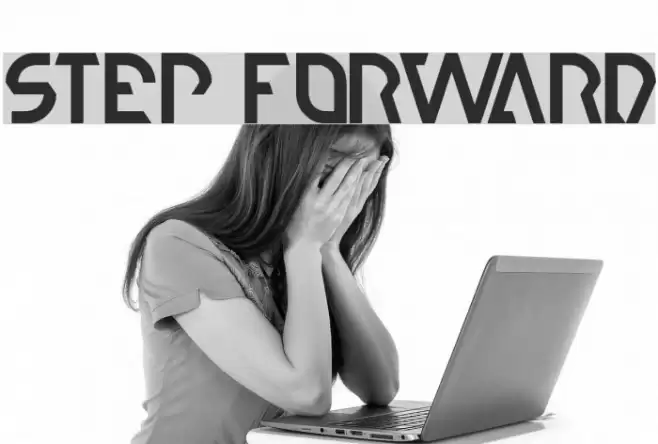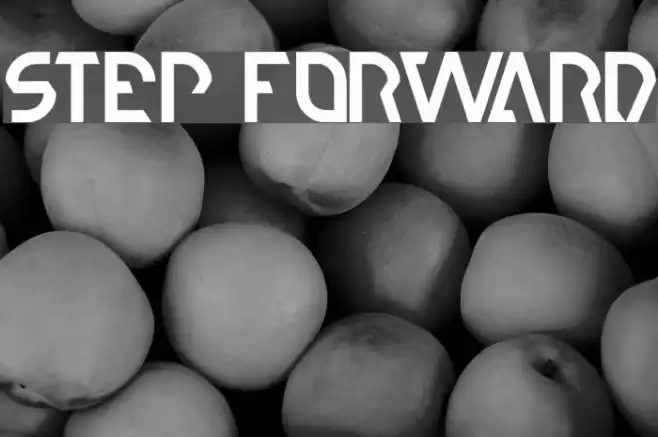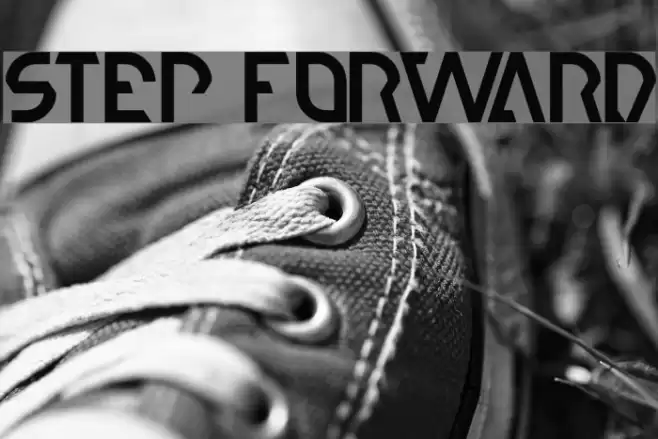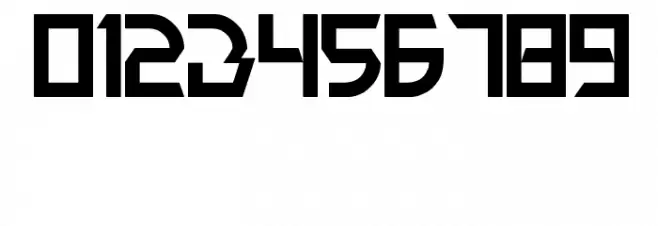
step forward Font
step forward Description
This font features a bold, geometric design with sharp angles and a futuristic aesthetic. The characters are constructed with a mix of straight lines and diagonal cuts, creating a dynamic and edgy appearance. The uppercase letters are particularly striking, with a uniform height and consistent width, giving the font a cohesive look. The numerals follow the same design principles, ensuring a seamless integration with the alphabet. This font's unique style makes it suitable for projects that require a modern and bold statement.
A bold, geometric font with sharp angles and a futuristic style from Uncategorized fonts.
- Proposed Projects: Ideal for sci-fi themed designs, technology branding, video game titles, and modern posters.
- Overall Style: Futuristic